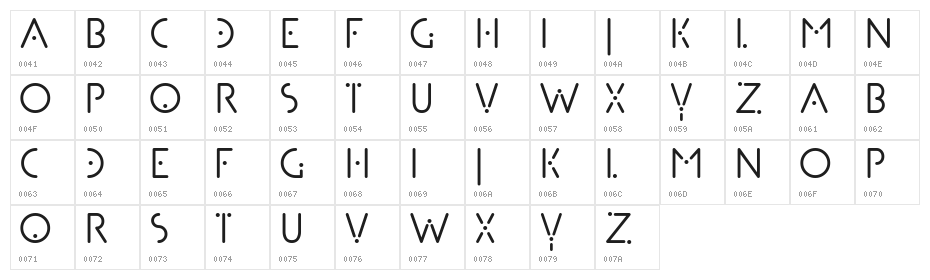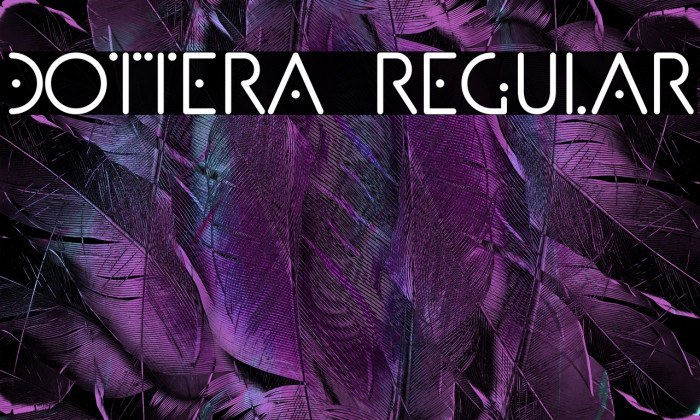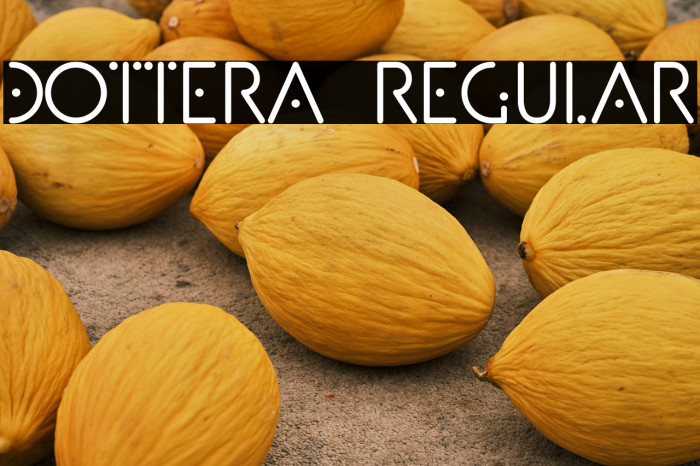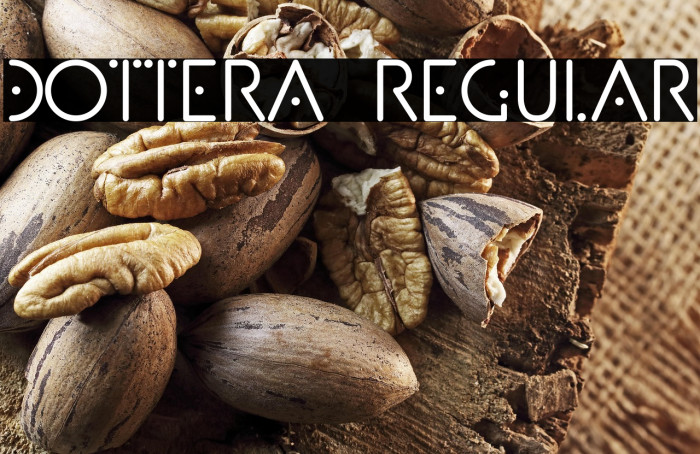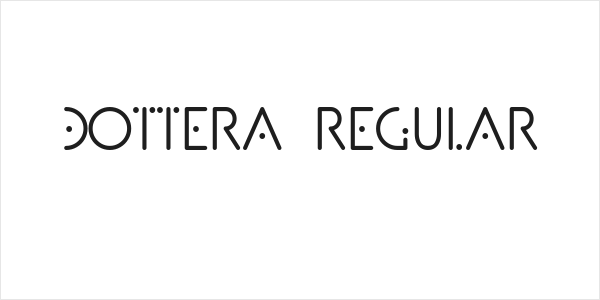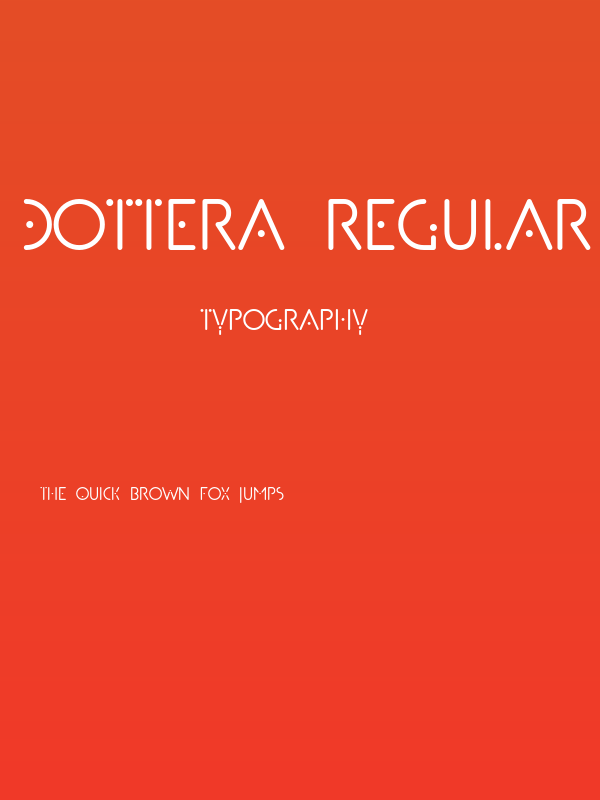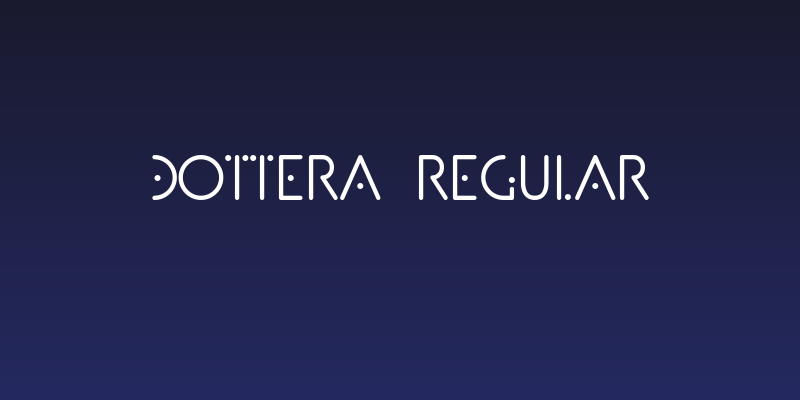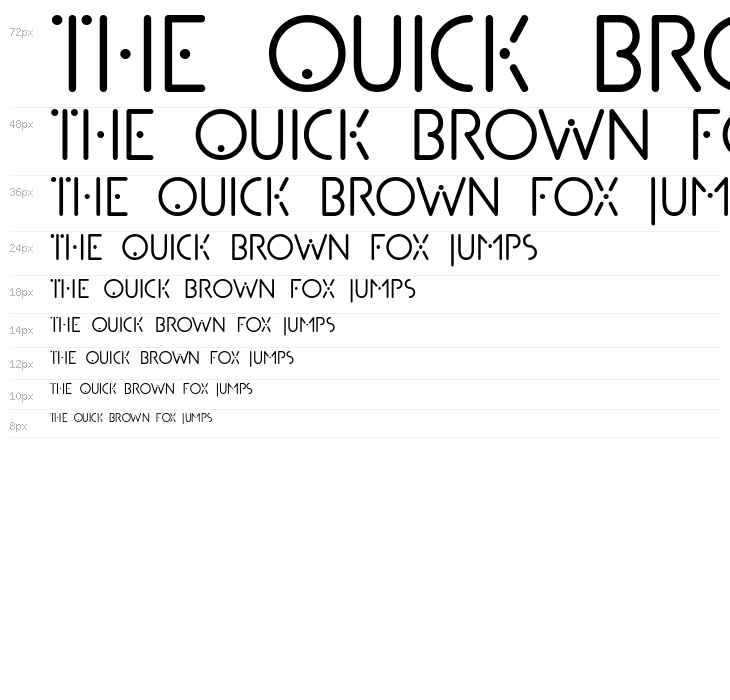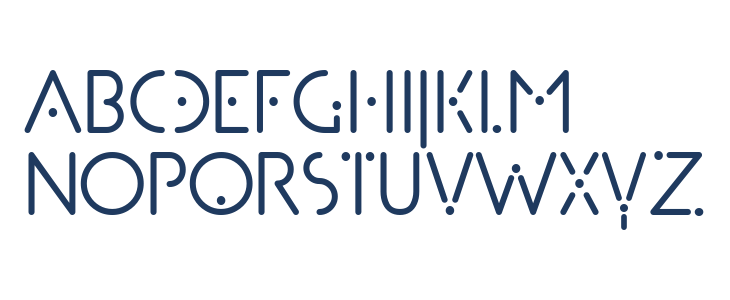
Dottera Regular Font
Dottera Regular Description
This font features a unique and modern design with geometric elements and circular accents. Each character is crafted with precision, incorporating dots and lines that create a futuristic and artistic appearance. The uppercase letters are particularly striking, with a consistent use of circular motifs that add a playful yet sophisticated touch. The font maintains a clean and minimalist aesthetic, making it suitable for contemporary designs. Its distinct style is both eye-catching and versatile, allowing for creative applications across various media. The balance between the bold lines and delicate dots provides a harmonious visual experience, making it ideal for projects that require a modern and innovative look.
| Proposed Projects | Ideal for branding, logos, posters, and digital media that require a contemporary and artistic touch. |